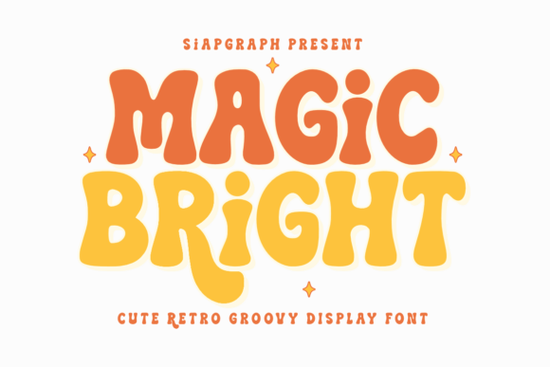
If you're searching for a retro display typeface that feels cheerful, bold, and easy to work with, the Magic Bright Font is worth a close look. It draws on 70s-inspired groovy aesthetics with wavy, bouncy letterforms that bring a playful, nostalgic energy to any design. Whether you sell products through a Print on Demand shop or you're a hobbyist making party decorations at home, this font is built to deliver clean results without headaches.
What Does the Magic Bright Font Look Like?
Think bold, rounded letters with a subtle wave running through them. The overall vibe is optimistic and fun the kind of typeface you'd see on a vintage concert poster or a retro birthday card. It's not overly decorative to the point where it becomes hard to read. Instead, it strikes a balance between personality and legibility, which matters a lot when you're putting text on physical products like mugs, T-shirts, or stickers.
The font's construction is clean and substantial, which means even thin strokes hold up well at different sizes. This is especially helpful if you work with vinyl cutting or sublimation printing, where poorly designed fonts can cause peeling edges or blurry output.
If you've ever struggled with fonts that look great on screen but fall apart when you send them to a cutting machine, you'll appreciate the thoughtful engineering behind this one.
What Projects Work Best With a Retro Groovy Font?
The Magic Bright Font really shines on designs that need a bold, joyful statement. Here are some specific ideas:
- Summer Break T-shirts and tank tops with retro lettering
- Birthday party supplies banners, cupcake toppers, and favor tags
- Music festival posters and wristband designs
- Vinyl stickers for laptops, water bottles, and planners
- Custom mugs with upbeat sayings or names
- Social media graphics that need to stand out in a crowded feed
- End-of-year school event materials like certificates and photo props
- Nursery wall art with warm, friendly lettering
Because the letterforms are bold and bouncy, they pair well with simple sans-serif fonts for body text. You could combine it with something like the groovy style font collection for a full retro-themed design system, or contrast it with a more structured typeface to let the headings stand out.
Does It Actually Work Well for Vinyl Cutting and Sublimation?
Yes, and that's one of the main reasons this font stands out. Many retro or groovy display fonts look fantastic on a computer screen but cause problems when you send them to a cutting machine. Thin overlapping strokes, unnecessary flourishes, or inconsistent letter spacing can all lead to wasted vinyl and frustrated crafting sessions.
The Magic Bright Font avoids these issues with clean, well-spaced letterforms that hold together at various sizes. Whether you're cutting a small label or scaling up for a wall decal, the shapes stay crisp. For sublimation, the bold weight means the text won't disappear into busy patterns or lose readability after transfer.
How Does It Compare to Other Groovy Display Fonts?
Creative Fabrica has a solid selection of retro and groovy typefaces. If you like the playful feel of Magic Bright, you might also want to explore fonts like Best Friend for a similarly warm aesthetic, or Spizelmore if you want something with a slightly different take on retro styling. For projects that need a distressed or worn look, Bold Limited offers that textured edge. And if you're working on something sweet and playful, the Twinkle Candy font brings a fun, candy-inspired vibe.
Each of these serves a slightly different mood, so it's worth browsing a few to find the one that fits your project best.
Quick Checklist Before You Buy
Before purchasing, make sure you've considered the following:
- Check the license confirm it covers your intended use, whether personal or commercial
- Test readability type out the exact phrases you plan to use and check them at the size you'll print or cut
- Pair it wisely choose a simple companion font so your designs don't feel cluttered